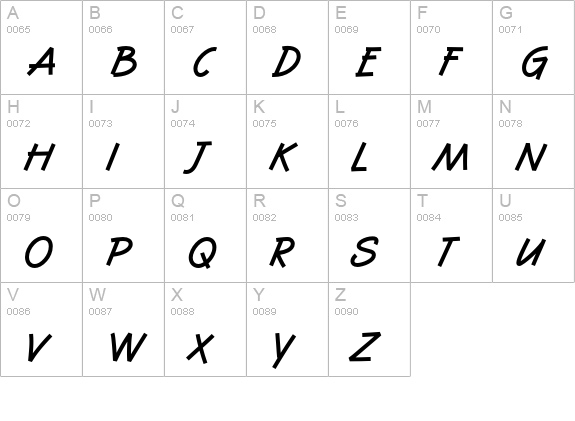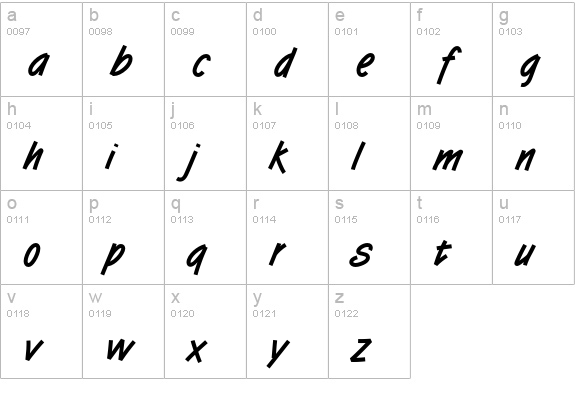
TomboyBold Font Details
TomboyBold is a dynamic and charismatic font that exudes an air of confidence and uniqueness. Its bold and assertive nature makes it the perfect choice for those who want to make a bold statement with their typography. This font is meticulously crafted to capture attention and leave a lasting impression. With its strong, thick lines and distinctive curves, TomboyBold stands out from the crowd and demands attention. It is versatile enough to be used in a variety of design projects, from logos and headlines to posters and packaging. Its boldness adds a touch of personality and flair to any piece of work. But what sets TomboyBold apart from other fonts is its availability for free download. Yes, you heard it right! TomboyBold is freely available to download at FontsMarket.com. This means that you can add this amazing font to your design arsenal without having to spend a dime. FontsMarket.com offers a vast collection of high-quality fonts, and TomboyBold is one of their shining stars. It is a font that not only captures attention but also offers convenience and accessibility. Whether you are a professional designer or an aspiring creative, TomboyBold is a font that can take your projects to the next level. So why wait? Take advantage of this incredible opportunity and download TomboyBold for free at FontsMarket.com. Explore the endless possibilities that this font offers and unleash your creativity like never before. With TomboyBold, your designs will truly stand out and make a lasting impression.